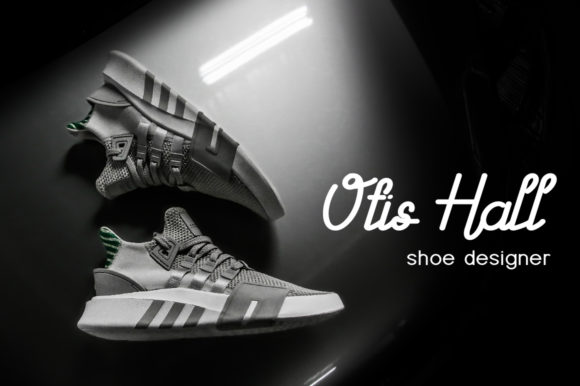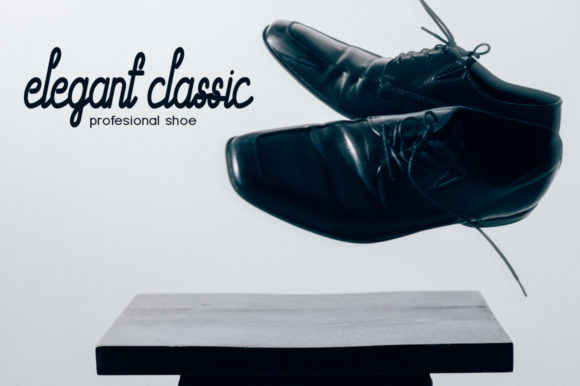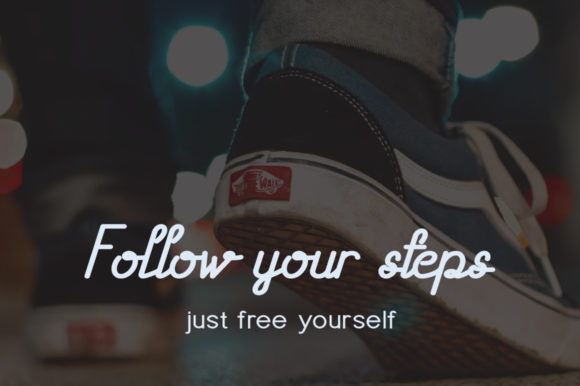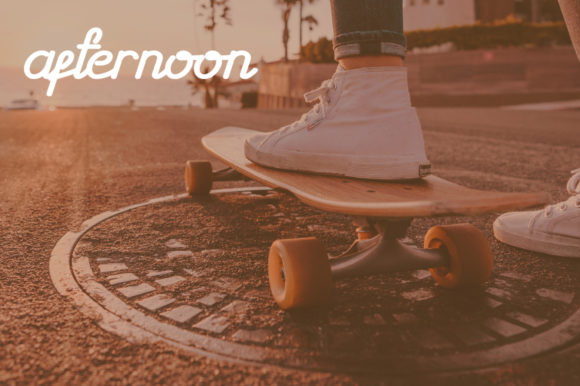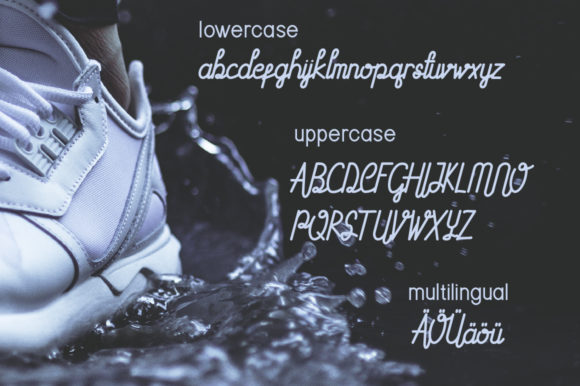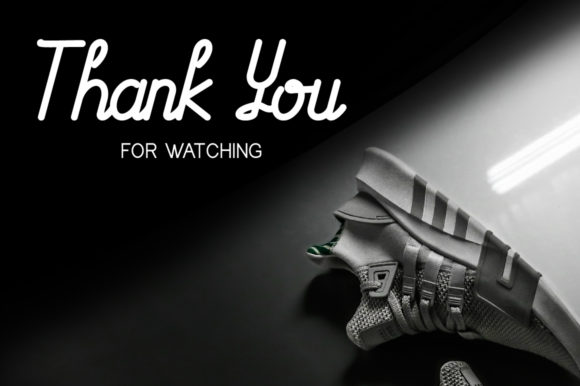
The Quest for the Perfect Font: Discovering Astrada
I still remember the frustration of working on a design project, hours spent searching for the perfect font to bring my vision to life. My client wanted a sophisticated, yet vintage touch, and I was determined to deliver. That’s when I stumbled upon Astrada, a fresh and modern script with a vintage appearance that instantly caught my eye. In this article, I’ll share my experience with Astrada, its features, and how to make the most of this beautiful font.
An Honest Review of Astrada Font
What I Love About Astrada ✨
- 💫 Unique blend of modern and vintage elements, perfect for adding a touch of sophistication to any design.
- ✅ Highly legible, even at smaller font sizes, making it versatile for various design applications.
- 🎨 Extensive range of OpenType features, including glyphs and stylistic alternates, allowing for creative experimentation.
- 🌈 Beautifully crafted, with a distinct character that sets it apart from other script fonts.
- ⚠️ Some users may find the font a bit too ornate for very casual or minimalist designs.
- 🤔 Limited availability of certain characters, such as ligatures, which may require additional design workarounds.
The Story Behind Astrada
Astrada was designed with the intention of blending traditional elegance with modern flair. Inspired by vintage typography and calligraphy, the font’s creator aimed to produce a versatile and sophisticated typeface suitable for a wide range of design applications. The result is a font that exudes refinement and poise, perfect for designers seeking to add a touch of luxury to their work.
| What makes Astrada unique? | Astrada’s unique blend of modern and vintage elements sets it apart from other script fonts. |
| Is Astrada suitable for body text? | While Astrada is highly legible, it’s best suited for headings and titles due to its ornate nature. |